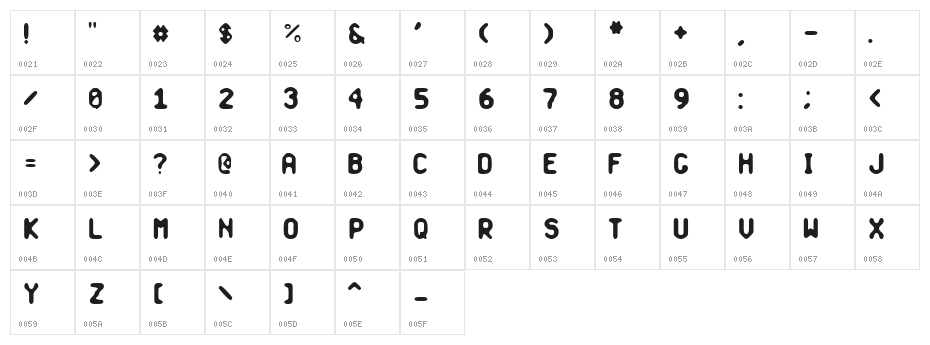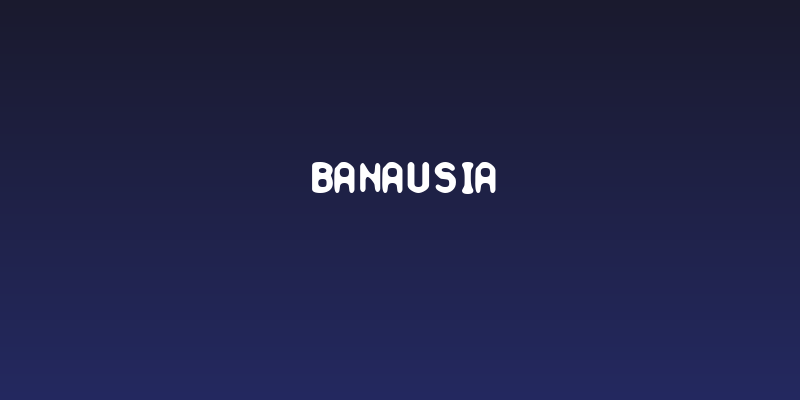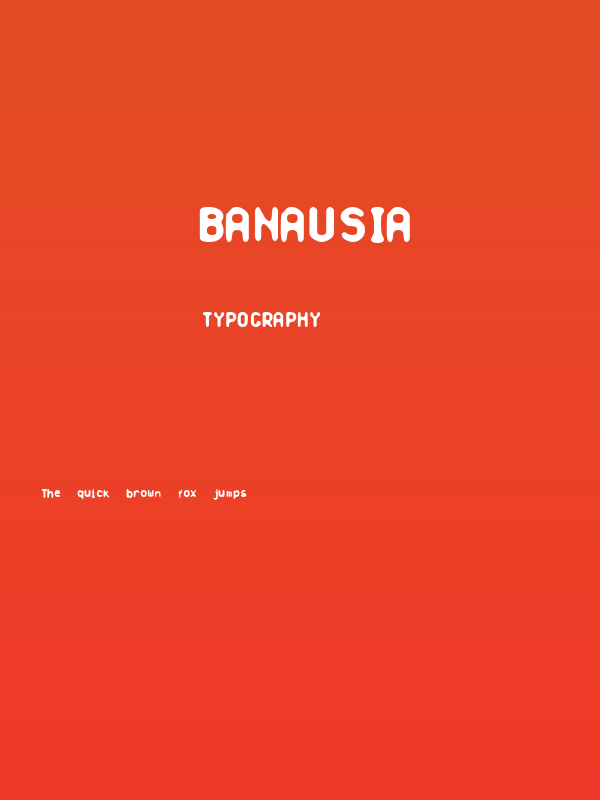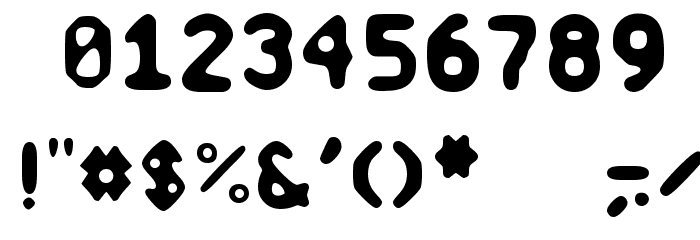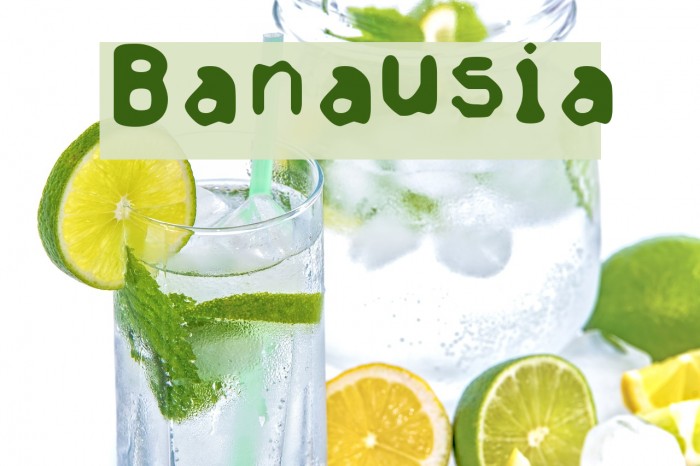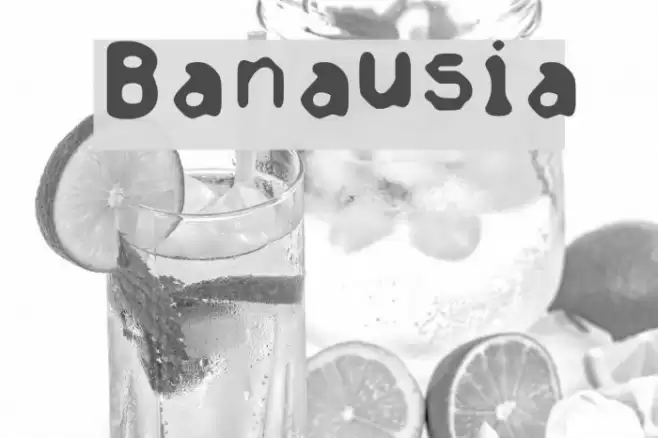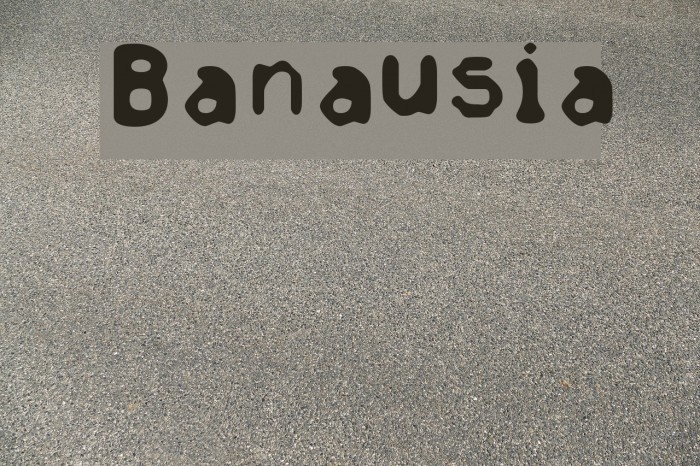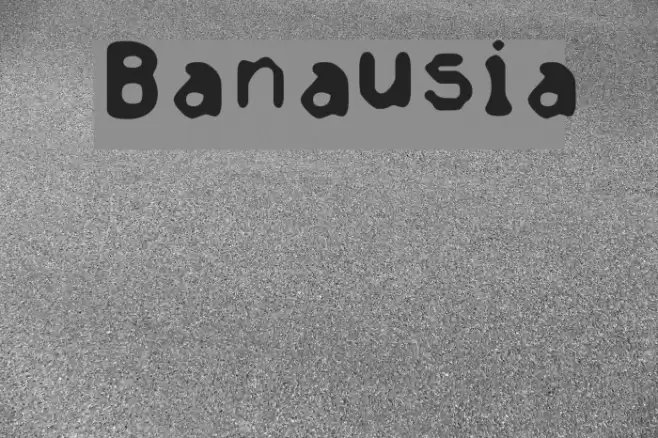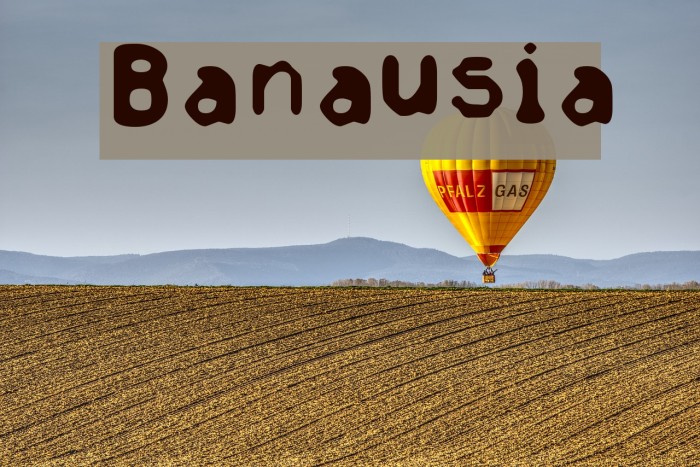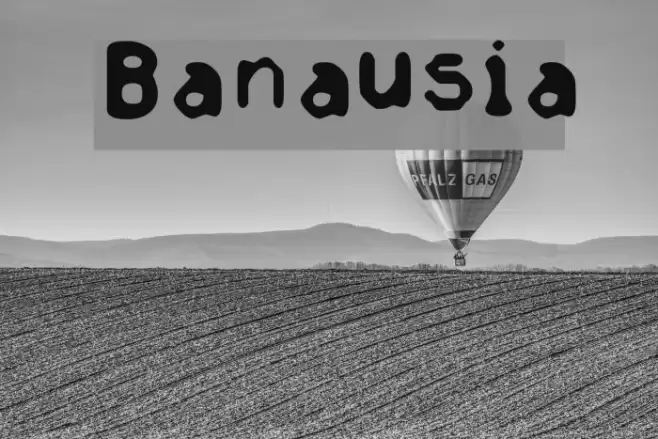
Banausia Font
Banausia Description
This font features a playful and bold design with rounded edges and a slightly irregular form, giving it a whimsical and friendly appearance. The characters are thick and substantial, making them stand out with a strong presence. The uppercase and lowercase letters maintain a consistent style, while the numbers and special characters complement the overall look with their unique, rounded shapes. This font is ideal for projects that require a fun and approachable aesthetic.
| Overall Style | Playful, Whimsical |
| Proposed Projects | Ideal for children's books, playful branding, posters, and creative projects that require a fun and approachable look. |